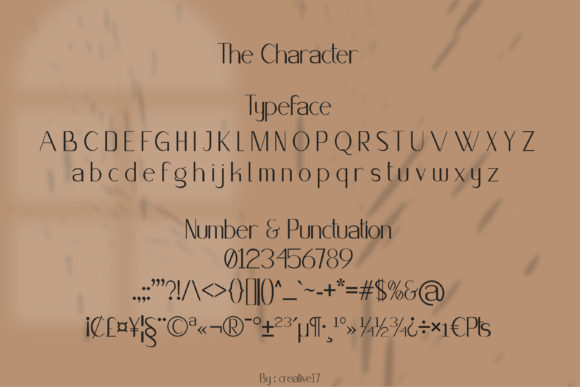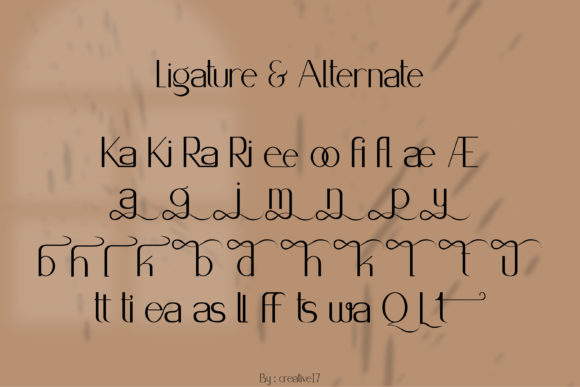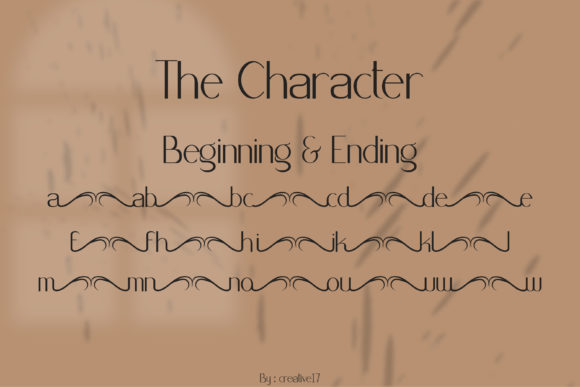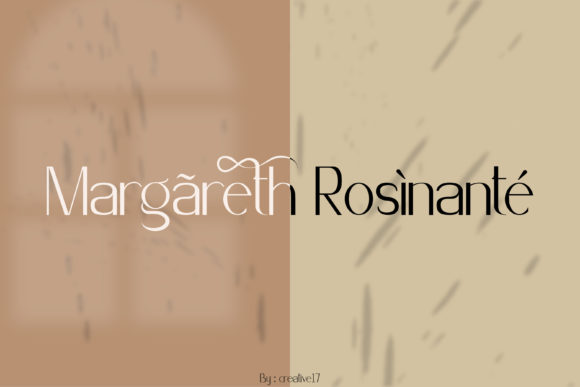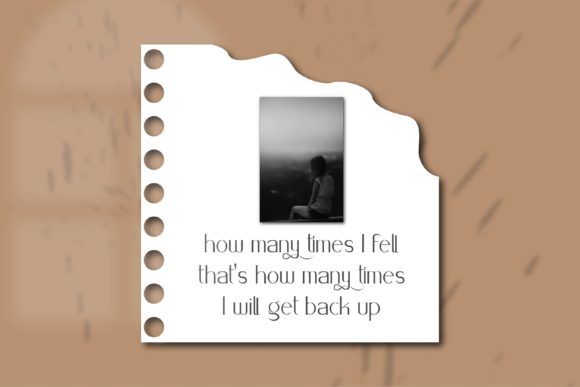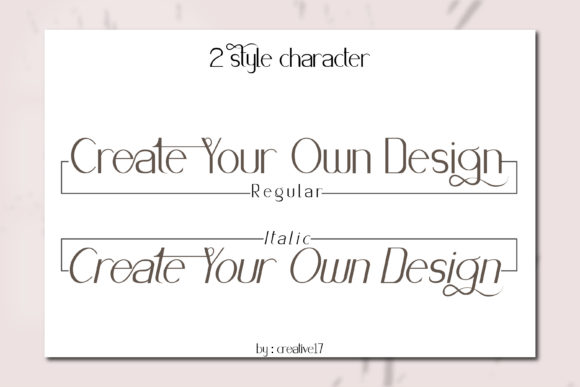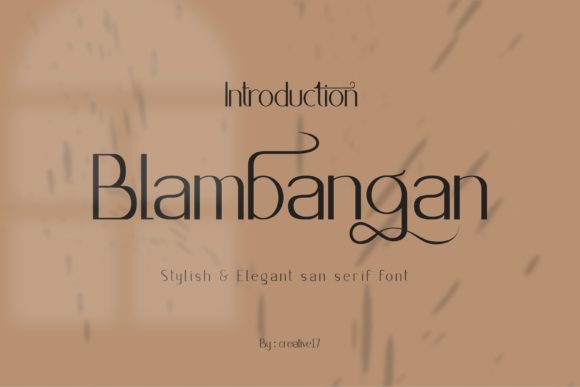
Introducing Blambangan Font: Elevate Your Designs with Elegance and Versatility
In the world of typography, fonts play a crucial role in conveying messages, expressing emotions, and creating a lasting impression. For designers and crafters, finding the perfect font can be a daunting task. However, if you’re looking for a stylish, elegant, and versatile font, look no further than Blambangan Font. This stunning sans serif font is designed to take your designs to the next level, and in this article, we’ll explore its features, benefits, and uses.
What is Blambangan Font?
Blambangan Font is a modern sans serif font that exudes elegance and sophistication. Its clean lines, subtle curves, and balanced proportions make it perfect for a wide range of design applications. Whether you’re working on a logo, branding project, or marketing material, Blambangan Font is sure to impress. This font is PUA encoded, which means you can access all of the glyphs and swashes with ease, giving you unparalleled creative control.
Key Features of Blambangan Font
- PUA Encoding: Blambangan Font is PUA encoded, allowing you to access all glyphs and swashes effortlessly.
- Sans Serif Design: The font’s clean and minimalist design makes it perfect for modern designs.
- Elegant and Versatile: Blambangan Font is incredibly versatile, making it suitable for a wide range of design applications.
Benefits of Using Blambangan Font
So, why choose Blambangan Font for your next design project? Here are just a few benefits of using this exceptional font:
- Elevate Your Designs: Blambangan Font adds a touch of elegance and sophistication to any design.
- Increase Versatility: With its wide range of glyphs and swashes, you can experiment with different styles and effects.
- Save Time: The font’s ease of use and PUA encoding save you time and effort in the design process.
- Stand Out: Blambangan Font helps your designs stand out from the crowd, making them more memorable and impactful.
Use Cases for Blambangan Font
Blambangan Font is suitable for a wide range of design applications, including:
- Logo Design: Create a stunning logo that showcases your brand’s personality and values.
- Branding: Develop a consistent brand identity with Blambangan Font.
- Marketing Materials: Use the font in brochures, flyers, and other marketing materials to create a lasting impression.
- Web Design: Enhance your website’s typography with Blambangan Font.
- Crafting and DIY Projects: Add a touch of elegance to your crafting and DIY projects, such as invitations, cards, and scrapbooking.
In conclusion, Blambangan Font is an exceptional sans serif font that offers elegance, versatility, and ease of use. Its PUA encoding, clean design, and wide range of glyphs and swashes make it perfect for designers and crafters looking to elevate their designs. Whether you’re working on a logo, branding project, or marketing material, Blambangan Font is sure to impress. So, fall in love with its incredibly versatile style and use it to create spectacular designs that leave a lasting impression.